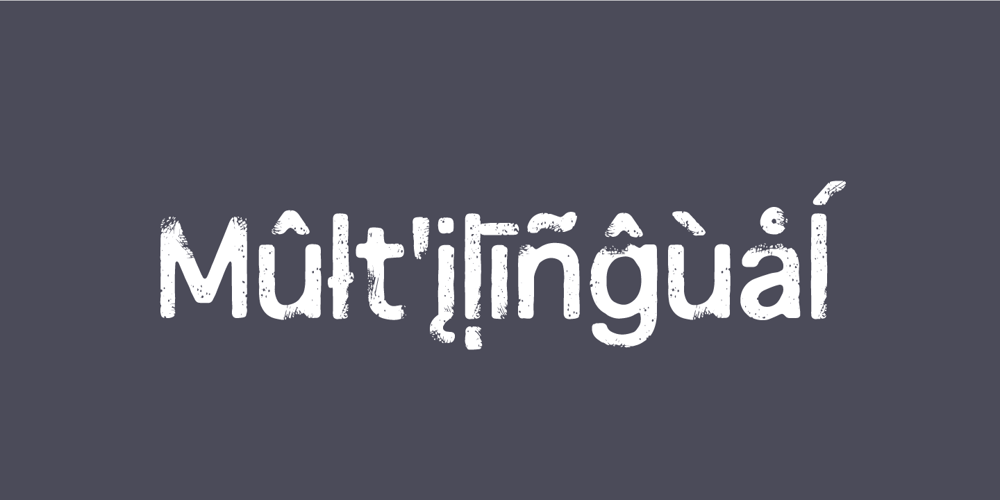
Overloaded
Overloaded font
Overloaded Font Family was designed by Jakob Fischer and published by PizzaDude.dk. Overloaded contains 1 styles and family package options. Overloaded is an excellent font for a wide variety of use – most likely something that needs a kind of worn look. Works well in both large and small sizes, that being headlines and/or display. Surprisingly versatile and will fit tons of different purposes. I put in 3 different versions of the lowercase letters for you to pick as you please, and play around with. Comes with multilingual support